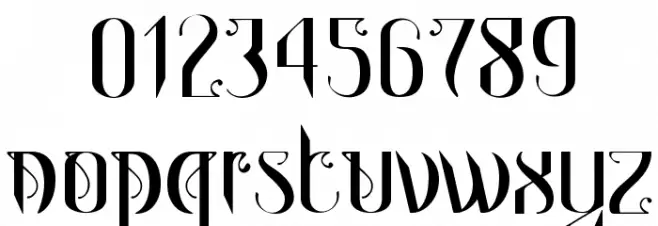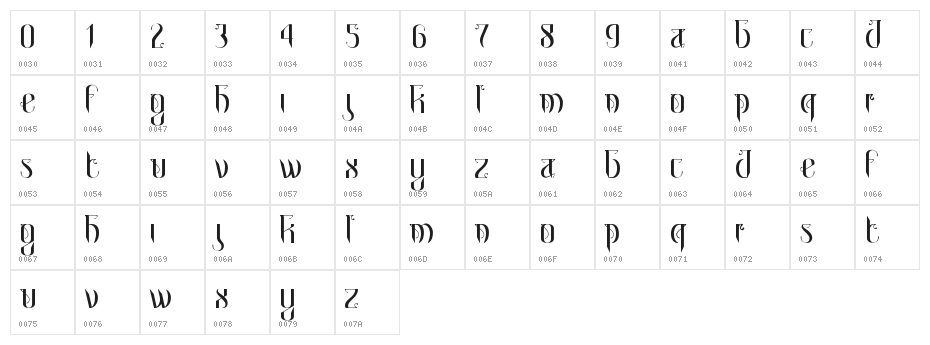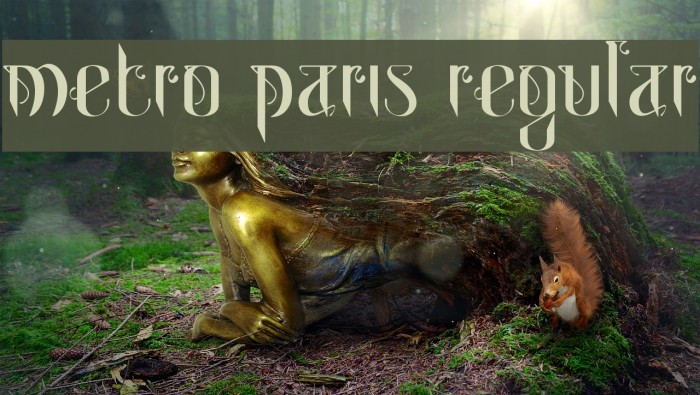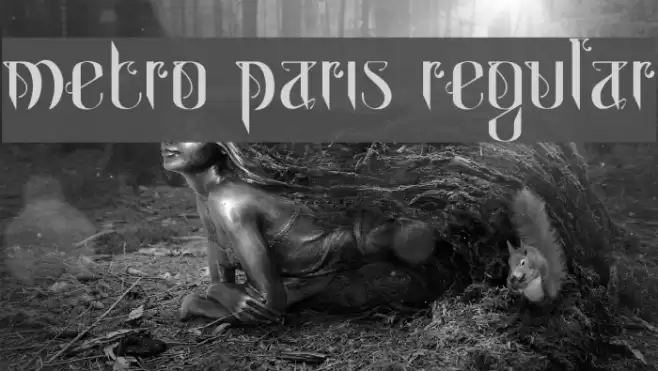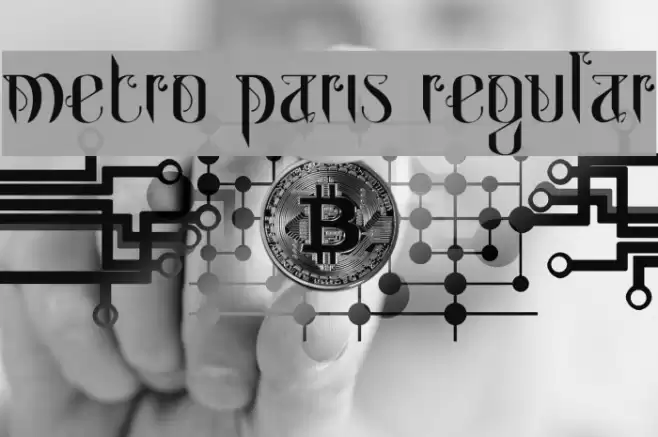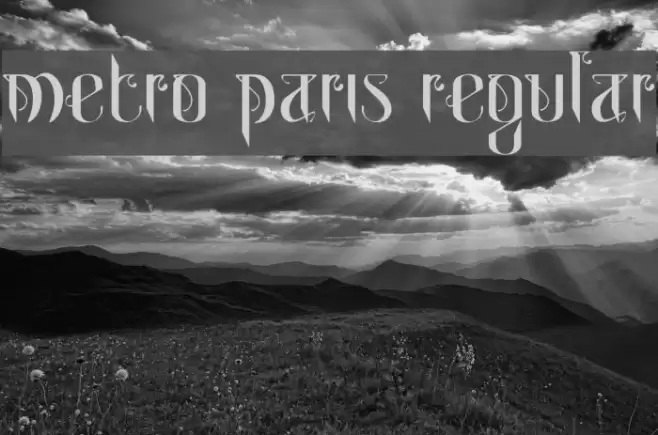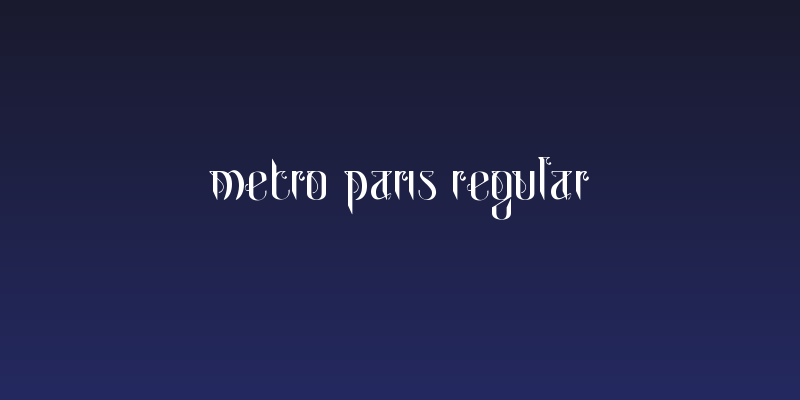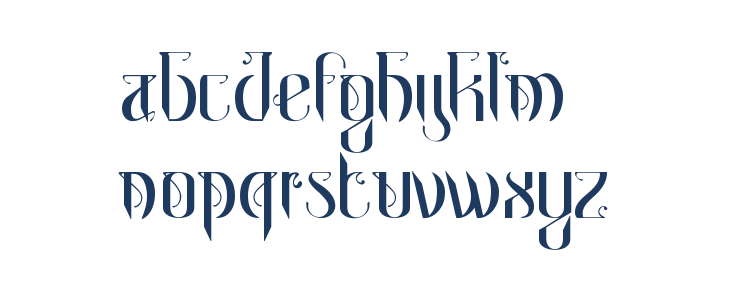
Metro Paris Regular Font
Metro Paris Regular Description
This font features a unique and artistic design with a blend of modern and vintage elements. The characters are highly stylized, incorporating sharp angles and elegant curves that create a sense of movement and sophistication. The uppercase and lowercase letters maintain a consistent style, with distinctive flourishes that add a decorative touch. The numerals are equally stylized, ensuring a cohesive look across all characters. This font is ideal for projects that require a bold and artistic statement, offering a striking visual impact.
| Overall Style | Modern, Vintage, Decorative |
| Proposed Projects | Ideal for branding, posters, album covers, and any design project that requires a bold and artistic statement. |